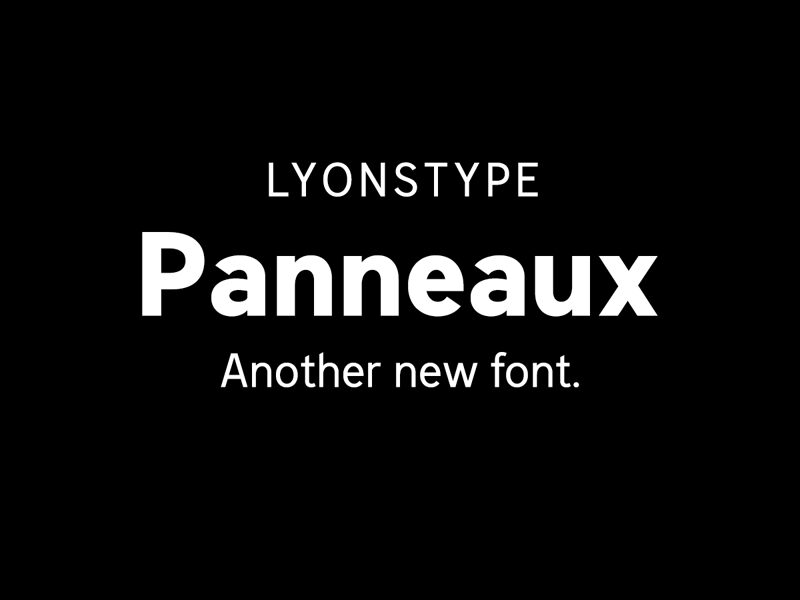
LT Panneaux Medium is a distinctive sans serif typeface from the LT Panneaux family, crafted with care by LyonsType. Drawing inspiration from the quintessential highway signs dotting the French landscape, this font carries an air of familiarity paired with an understated elegance. Its semi-light weight lends it a clean and modern aesthetic that is both versatile and highly readable.
The font's clear-cut lines and open forms evoke a sense of clarity and precision, making it an excellent choice for signage, editorial design, branding, or any project that requires effortless legibility. LT Panneaux Medium exudes a professional yet approachable vibe that can seamlessly transition from corporate to casual contexts.
Whether you're designing for print or digital media, LT Panneaux Medium offers a fresh take on the classic sans serif genre. It invites designers to infuse their work with a touch of Gallic charm without sacrificing functionality or style.